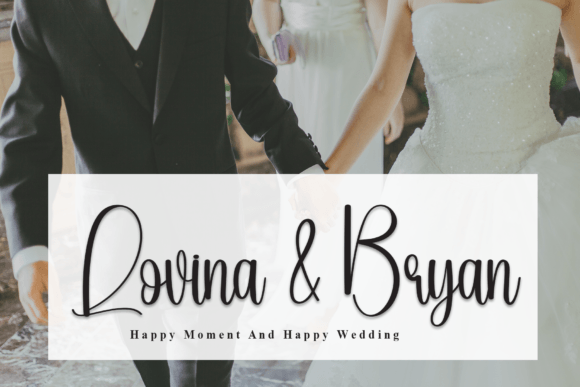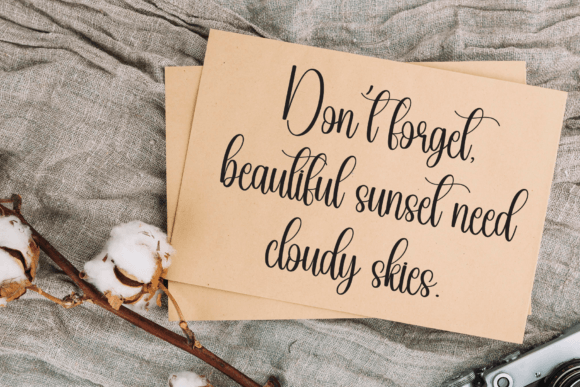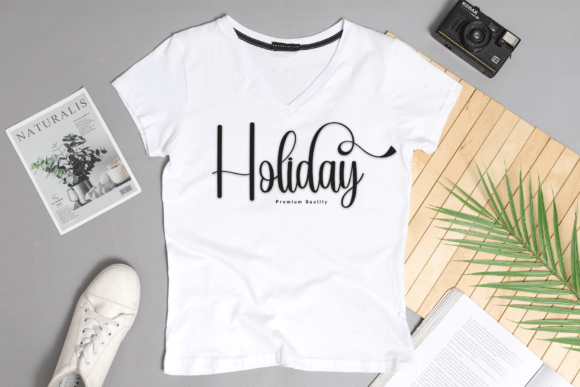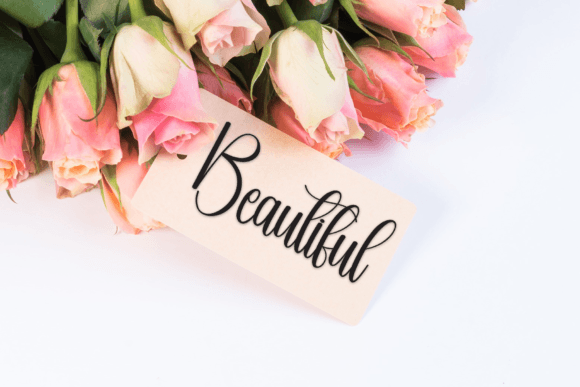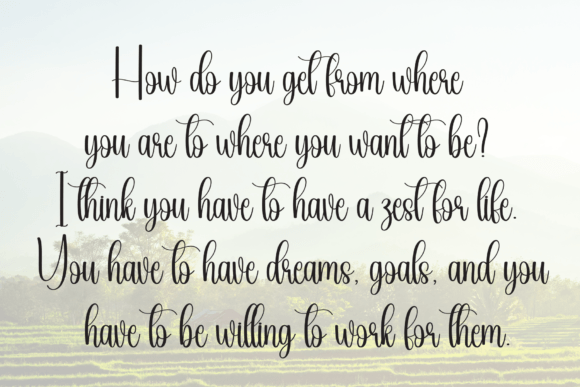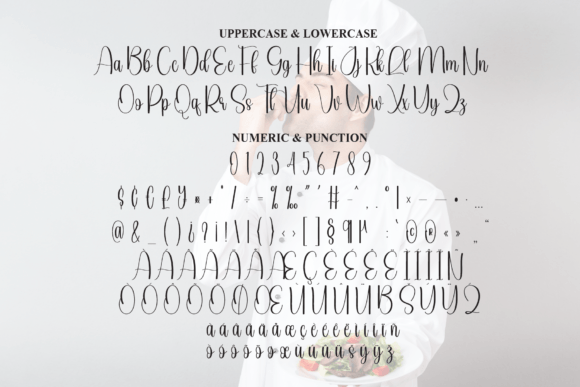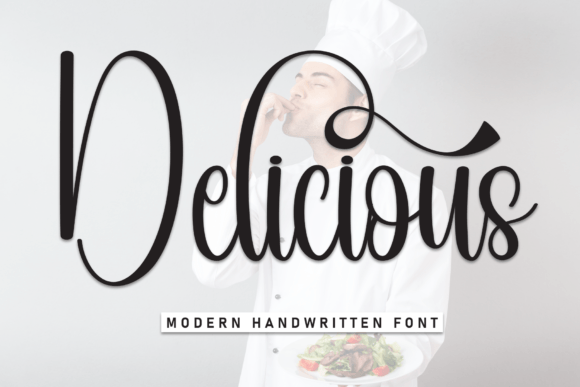
Introducing Delicious Font: The Sweetest Addition to Your Design Collection
Are you tired of using the same old fonts in your designs? Look no further than Delicious, a charming handwritten font that’s sure to bring a sweet, personal touch to your projects. With its smooth, flowing strokes and friendly character, Delicious is perfect for designers and crafters who want to add a dash of warmth and personality to their work.
Handwritten fonts have a way of making designs feel more personal and approachable. They evoke a sense of warmth and friendliness, making them perfect for projects that require a human touch. Delicious is no exception. Its unique, hand-crafted aesthetic makes it ideal for a wide range of design applications, from invitations and greeting cards to cozy branding and packaging.
What Makes Delicious Font So Special?
So, what sets Delicious apart from other fonts? Here are just a few features that make it a standout:
- Smooth, flowing strokes: Delicious has a beautiful, fluid quality that makes it a joy to read and look at.
- Friendly character: This font has a warm, approachable personality that’s perfect for designs that need to feel welcoming and inclusive.
- Highly versatile: Whether you’re designing a formal invitation or a playful brand identity, Delicious is the perfect choice.
Perfect for Invitations and Greeting Cards
Delicious is a natural fit for designers who specialize in creating invitations and greeting cards. Its elegant, cursive strokes make it perfect for:
- Birthday cards and party invitations
- Holiday greetings and Christmas cards
Add Warmth and Personality to Your Branding
But Delicious isn’t just limited to paper crafts. It’s also a great choice for designers who want to add a personal touch to their branding projects. Use Delicious to create:
- Cozy packaging and labels
- Warm and inviting website headers
- Friendly and approachable social media graphics
Tips for Using Delicious Font
Here are a few tips for getting the most out of Delicious:
- Pair it with contrasting fonts: Try pairing Delicious with a bold, sans-serif font for a striking contrast.
- Experiment with colors: Delicious looks great in a range of colors, from soft pastels to rich jewel tones.
- Don’t be afraid to get creative: Delicious is a versatile font that can be used in a wide range of design applications. Don’t be afraid to think outside the box and try something new.
In conclusion, Delicious is a charming handwritten font that’s sure to bring a sweet, personal touch to your designs. With its smooth, flowing strokes and friendly character, it’s perfect for designers and crafters who want to add warmth and personality to their work. Whether you’re creating invitations, greeting cards, or cozy branding, Delicious is the perfect choice. So why not give it a try and see the difference it can make in your designs?